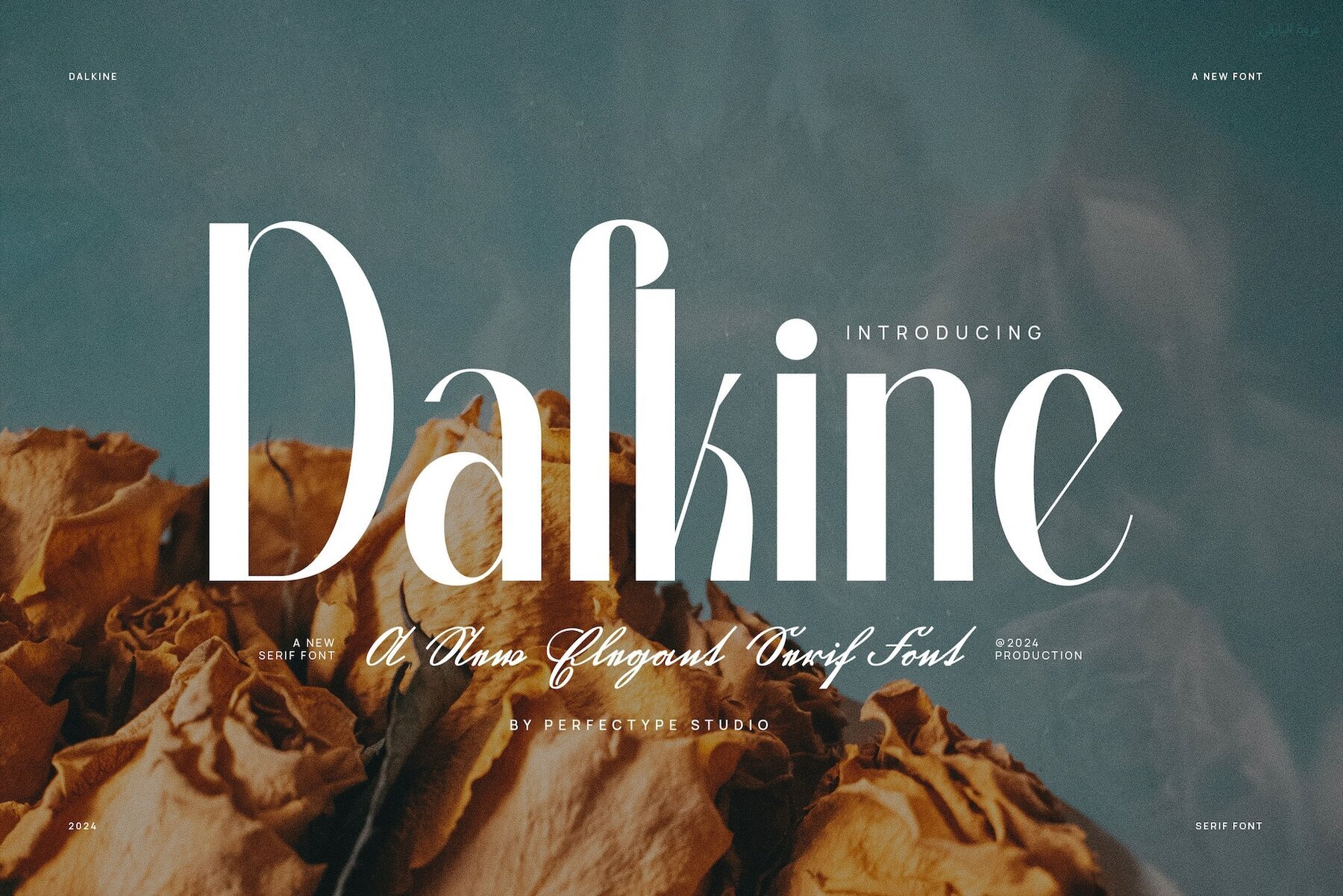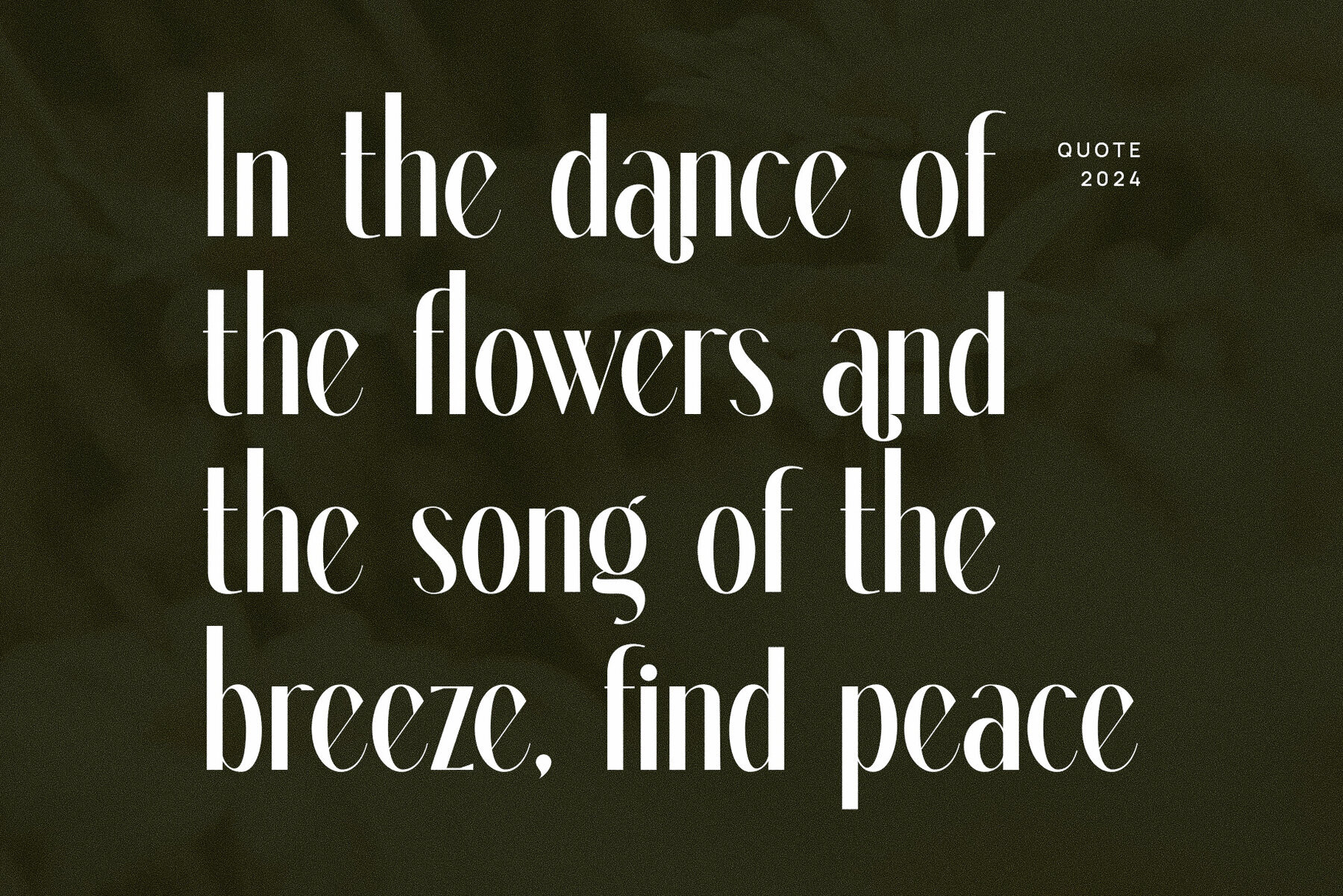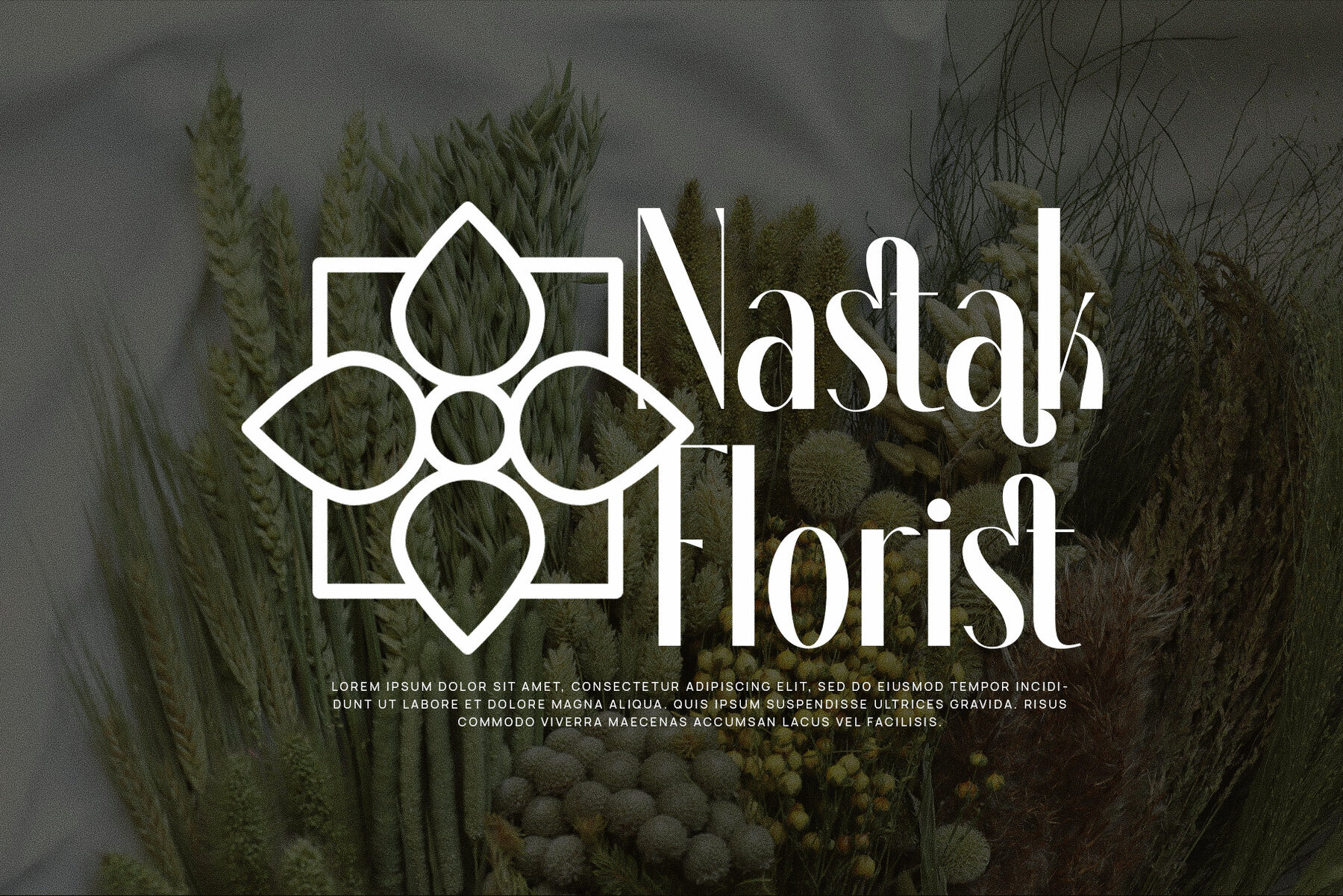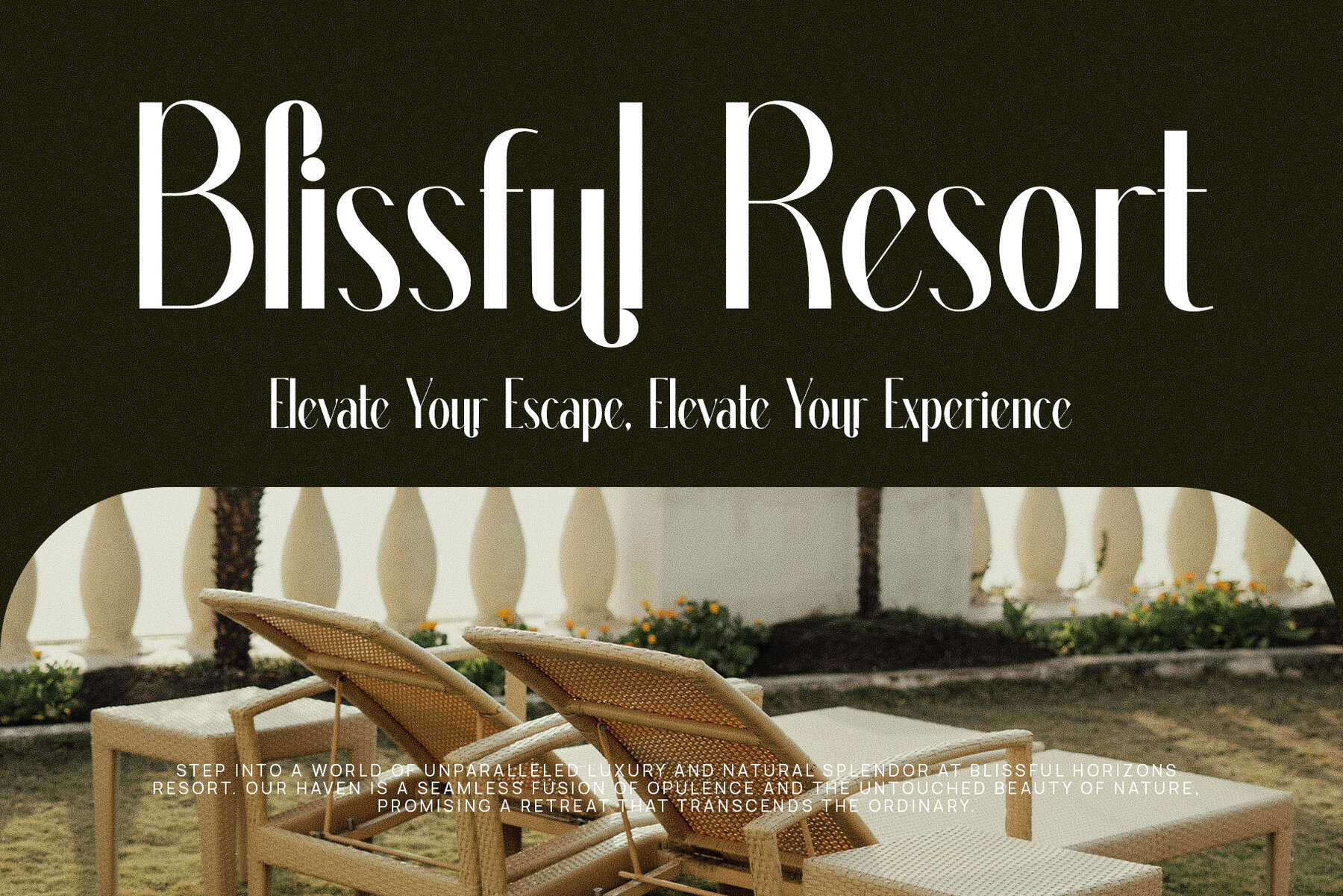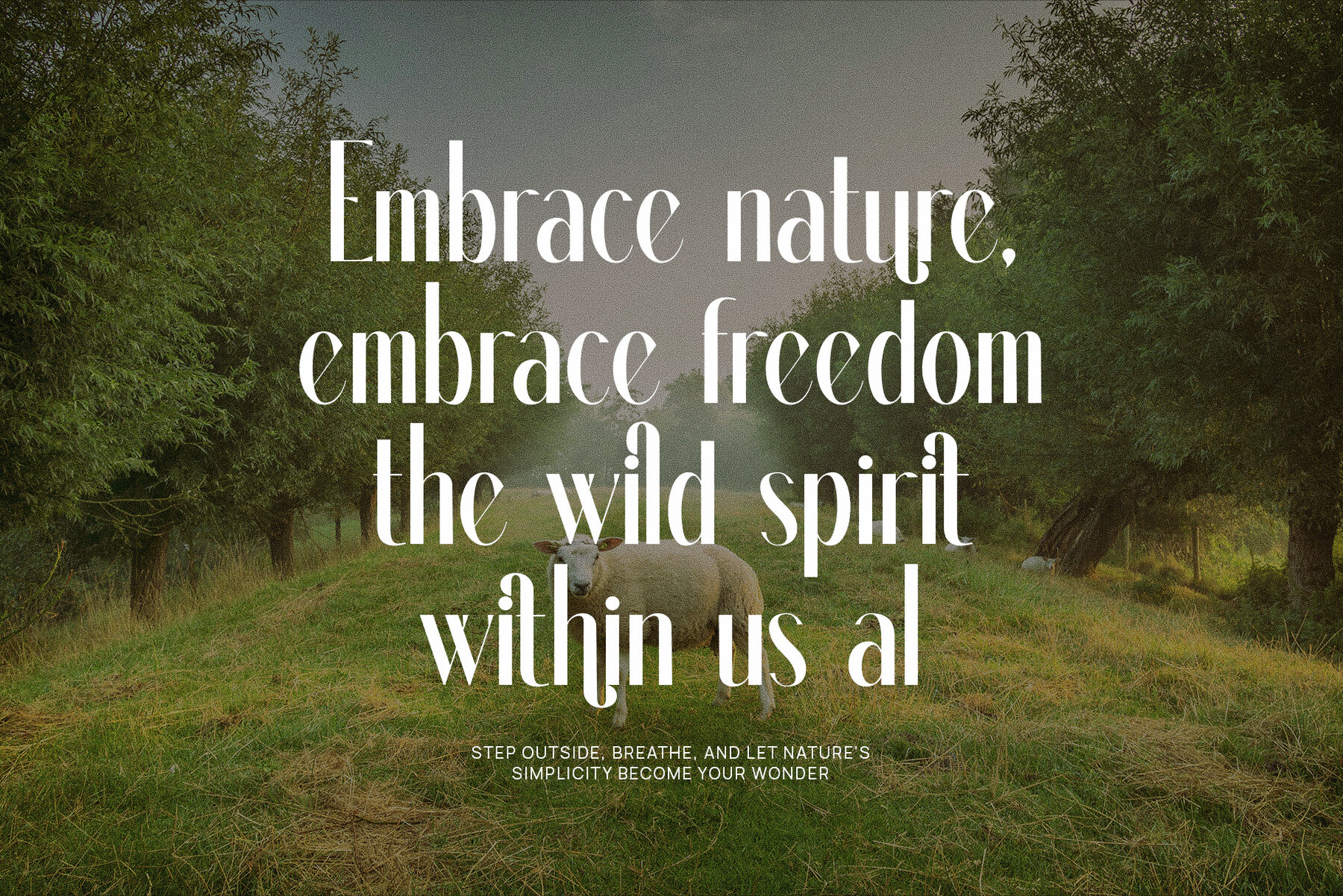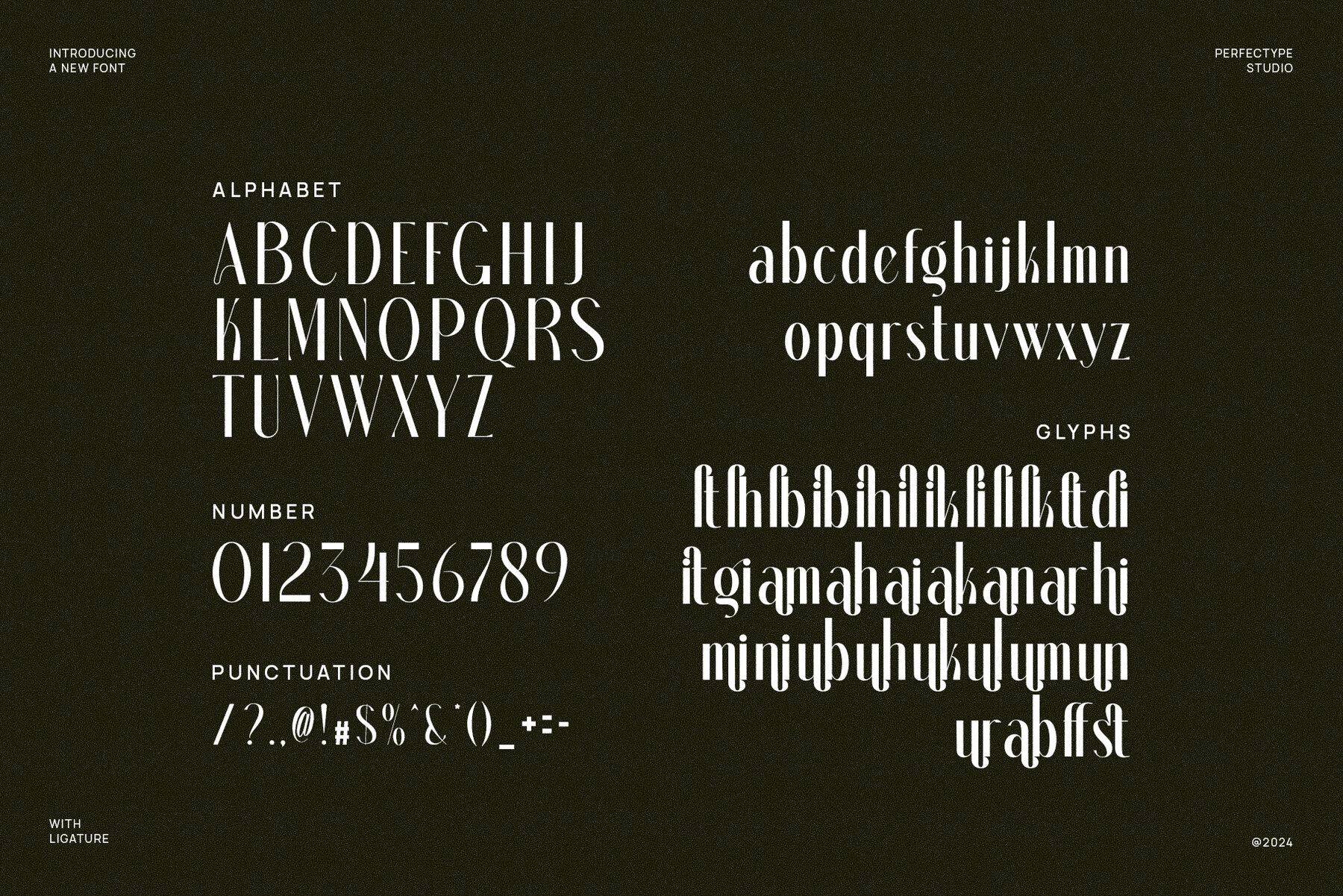
Dalkine Font
Dalkine
Dalkine Elegant Serif Font is a sophisticated typeface that merges modern aesthetics with classic elegance. Featuring finely crafted serifs and distinct letterforms, this font presents a polished finish suitable for a wide range of design projects. Its elegant ligatures and alternate characters offer customization options, ensuring seamless typography for diverse creative applications. Ideal for high-end branding, Dalkine is perfect for logos, product packaging, and luxury marketing materials. Its graceful structure performs well in both large headlines and smaller text, making it a versatile choice for websites, magazines, and advertisements.
Dalkine is particularly suited to industries that prioritize luxury and style, such as fashion, food, lifestyle, and boutique brands. Its modern yet timeless appeal ensures it remains effective across both print and digital media, delivering consistency and elegance in every use. With beautifully designed shapes, smooth ligatures, and unique alternate features, Dalkine Elegant Serif Font is a necessity for designers aiming to craft high-end, memorable branding. This font combines style with functionality, making it an exceptional choice for logos, websites, promotional materials, and more, leaving a lasting impression with its refined and elegant presence.